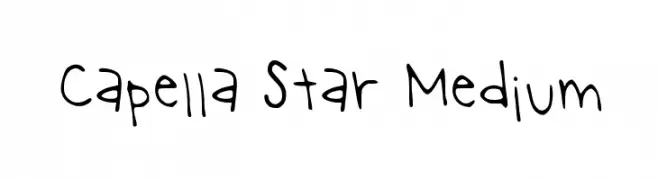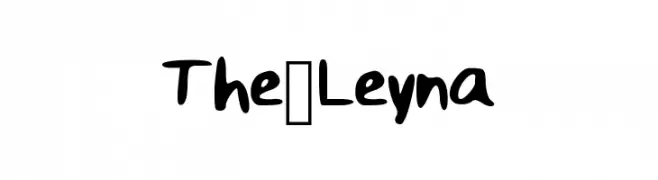
( Fonts by Casady & Greene )
A casual, handwritten font with a smooth, flowing style.
( Fonts by Nice and Ripe Ltd - www.niceandripe.com वाणिज्यिक फ़ॉन्ट )
A playful, casual handwritten font with smooth, flowing lines.
( Fonts by Galdino Otten - galdinootten.com )
A bold, chalk-textured font with a hand-drawn, informal style.
( Font by Jayvee D. Enaguas - grandchaos9000.deviantart.com )
A playful, hand-drawn font with outlined characters and a casual style.
( Font by Jayvee D. Enaguas - grandchaos9000.deviantart.com )
A playful, handwritten font with bold, irregular strokes and a casual feel.
( Font by Jayvee D. Enaguas - grandchaos9000.deviantart.com )
A bold, playful handwritten font with rounded strokes and an informal style.
( Fonts by Espen Morten Kvalheim - www.unbornchikken.com )
A bold, handwritten font with a casual and playful style.
( Fonts by Jason Arthur - JibbaJabba Fonts - www.myspace.com/jasonarthurloaded )
A playful, handwritten-style font with consistent strokes and rounded edges.
( Fonts by Pi Luo Chiu - thisisallenchiu.tumblr.com )
A playful, casual handwritten font with a friendly and organic style.
( Fonts by Andrew Hart - dirt2.com )
( Fonts by Kirk Shelton - www.kirkshelton.com )
A bold, expressive handwritten font with thick strokes and a playful style.
( Fonts by Davy Meykens - davymeykens.deviantart.com )
A bold, playful handwritten font with thick strokes and a casual style.
( Fonts by Nice and Ripe Ltd - www.niceandripe.com वाणिज्यिक फ़ॉन्ट )
A playful, casual handwritten font with an organic flow and friendly appearance.
( Fonts by Jason Arthur - JibbaJabba Fonts - www.myspace.com/jasonarthurloaded )
A playful, handwritten font with bold, rounded strokes and a lively, informal style.